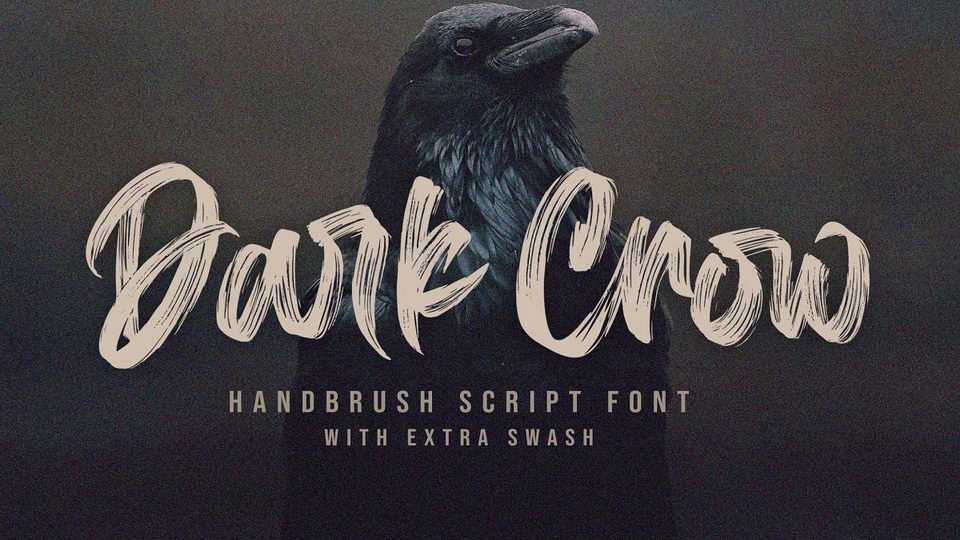
Download Dark Crow font, a supercharged, street-wise brush typeface bursting with energy with extra attention to quick strokes and sharp details.
Designer: Subectype